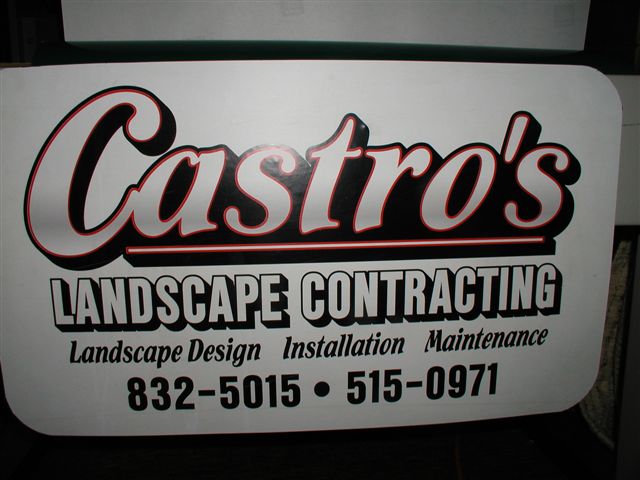
About this technique ( and font please)
The header " Castro's".... Main text has a gradient.( not a problem)
The outline ( red and black) and drop shadow combined.
How ( what program does this?) Also notice the underscore below Castro is also outlined and dropped.
Any ideas on what the Castro font is??
Do you all find it quite a challenge to reproduce someone else's design such as this? I dont know the program used..font..etc...
The name of the font is Flamenco. You can see it and purchase it HERE.
Doing the effect is easy enough with most software (although you do not have your design software listed in your profile.
1. Outline Red
2. Outline Black
3. Shadow Black Outline
4. Delete Black Outline